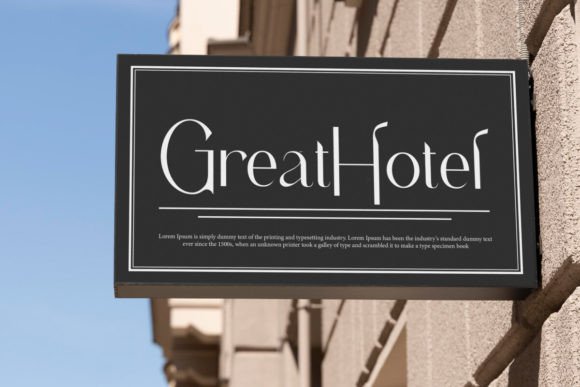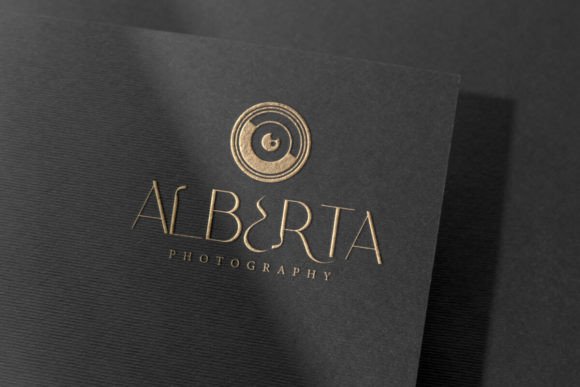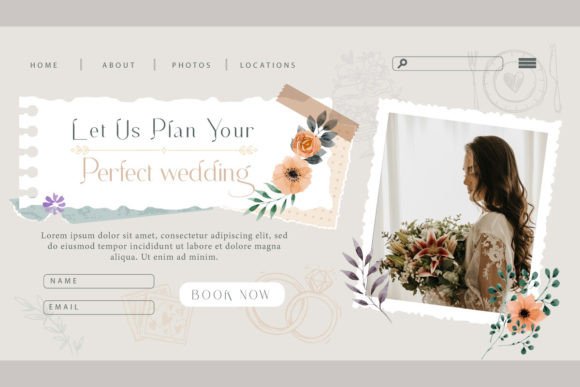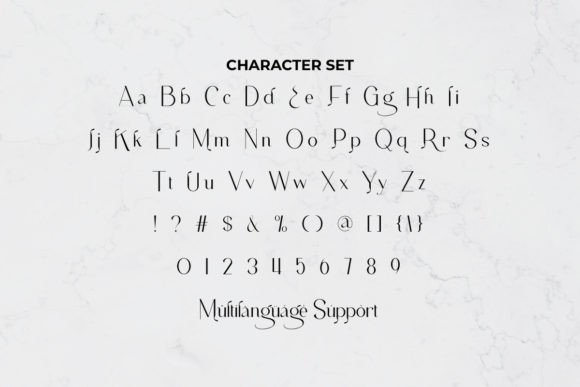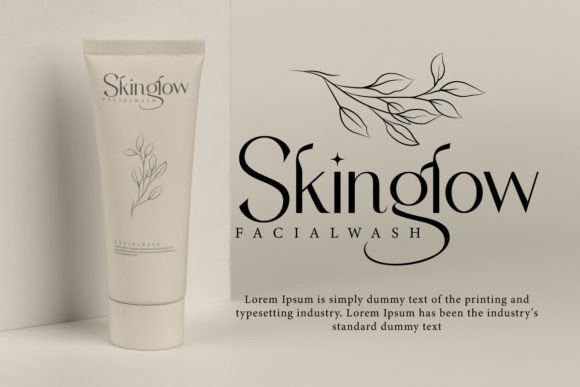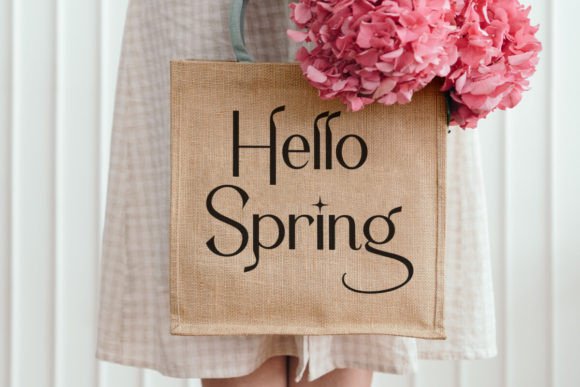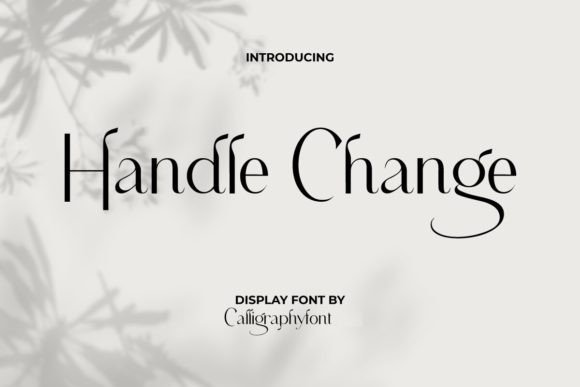
Introducing Handle Change Font: Elevate Your Designs with a Unique Stylish Display Font
In the world of typography, a font can make or break a design. For designers and crafters looking to add a touch of elegance and individuality to their projects, Handle Change Font is an exceptional choice. This stylish display font boasts a unique look that sets it apart from more traditional typefaces. Its distinct features, such as thin lines and upper indentation on select letters, make it an eye-catching addition to any creative endeavor.
What Makes Handle Change Font Stand Out?
Handle Change Font’s uniqueness lies in its design elements. The font features:
- Thin Lines: The overall design of Handle Change Font is characterized by its thin, elegant lines. This gives the font a lightweight and airy feel, making it perfect for projects where a subtle yet impactful look is desired.
- Upper Indentation on Some Letters: One of the most distinctive features of Handle Change Font is the upper indentation on certain letters. This detail adds a layer of sophistication and uniqueness, setting the font apart from more conventional display fonts.
Handle Change Font’s versatility is one of its strongest assets. Its stylish and unique appearance makes it suitable for a wide range of creative projects, including:
- Brand Logo: Create a memorable brand logo that stands out with Handle Change Font. Its unique design ensures your logo will be noticed and remembered.
- Headline and Title: Use Handle Change Font to craft compelling headlines and titles for magazines, websites, and advertising materials.
- Invitation and Label: Add a touch of elegance to invitations, labels, and packaging with this beautiful font.
- Magazine and Catalog: Enhance the visual appeal of your magazine or catalog with Handle Change Font, making it more engaging for readers.
- Custom Design and Packaging: For those looking to create custom designs for products or promotional materials, Handle Change Font offers a stylish and distinctive option.
- Print Material and Signage: From business cards to billboards, Handle Change Font can elevate your print materials and signage, making them more visually appealing.
- Stationery and Website: Incorporate Handle Change Font into your stationery for a cohesive brand look or use it on your website to create a strong first impression.
Why Choose Handle Change Font?
Choosing Handle Change Font for your design project comes with several benefits:
- Uniqueness: Stand out from the crowd with a font that offers a fresh and distinctive look.
- Elegance: Add a touch of sophistication to your designs with its thin lines and unique lettering details.
- Versatility: Suitable for a wide range of projects, from digital applications to print materials.
- Creativity: Inspire creativity and engage your audience with a visually appealing font.
How to Use Handle Change Font Effectively
To maximize the impact of Handle Change Font, consider the following tips:
- Pair with Complementary Fonts: For body text or supporting information, pair Handle Change Font with a simpler, more readable font to create visual contrast.
- Adjust Size and Color: Experiment with different sizes and colors to make your text stand out or blend in, depending on your design needs.
- Use on High-Quality Backgrounds: Ensure your background complements the thin lines of Handle Change Font for optimal visibility and aesthetic appeal.
Handle Change Font is a stylish display font that offers a unique and elegant solution for designers and crafters looking to elevate their projects. Its distinctive features, versatility, and the ability to make a lasting impression make it an excellent choice for a wide range of creative applications. Whether you’re designing a brand logo, creating custom packaging, or crafting engaging website content, Handle Change Font can help you achieve your design goals with style and sophistication.